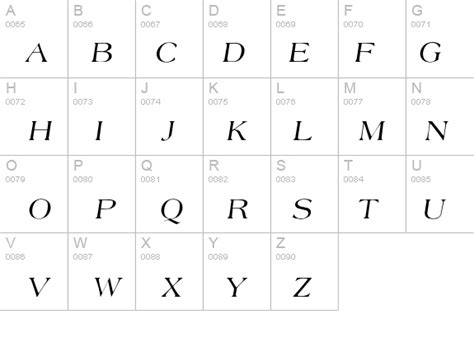
PSEIIBullpense: Exploring Normal Italic Font Styles
Let’s dive into the world of typography, guys! Today, we’re going to explore PSEIIBullpense normal italic fonts . Understanding the nuances of different font styles can significantly enhance your design projects, whether you’re creating a website, designing a logo, or working on print media. So, grab your coffee, and let’s get started!
What is PSEIIBullpense?
First off, what exactly is PSEIIBullpense? Well, it sounds like a specific font name, possibly a unique or custom typeface. Without more context, it’s hard to pinpoint its exact origin or characteristics. However, for the purpose of this article, let’s assume PSEIIBullpense refers to a hypothetical or niche font we want to discuss in terms of its normal italic style. When we talk about a font, we consider its overall design, including the weight (light, regular, bold), style (normal, italic, oblique), and various other attributes that make it unique.
When designers create fonts, they pay close attention to readability, aesthetics, and the overall impression the font conveys. PSEIIBullpense , like any other font, would have been designed with specific use cases in mind. Maybe it’s intended for elegant invitations, professional documents, or artistic displays. The design choices, such as the curvature of the letters, the thickness of the strokes, and the spacing between characters, all contribute to its unique personality.
Moreover, the cultural and historical context in which a font is designed can also influence its characteristics. Fonts often reflect the artistic trends and technological capabilities of their time. So, while PSEIIBullpense might sound modern, it could very well draw inspiration from classic typefaces or historical calligraphic styles. Understanding this background can help us appreciate the font’s design and use it more effectively in our projects.
Understanding Italic Fonts
Now, let’s zoom in on the “italic” part. What does it mean for a font to be italic? Simply put, italic fonts are a slanted version of a regular typeface. But it’s more than just tilting the letters! A true italic font is specifically designed to have a different character from its regular counterpart. The letterforms are often redesigned with a more cursive or script-like appearance, giving them a distinct personality.
The history of italic fonts is fascinating. Italic typefaces originated in the 15th century as a way to fit more text on a page. They were designed to mimic the handwriting of the time, making them both space-efficient and elegant. Over the centuries, italic fonts have evolved, but they still retain their association with sophistication and flair. Using italic fonts can add emphasis, indicate quoted material, or simply provide a visual contrast within a block of text.
One key difference between italic and oblique fonts is that italic fonts have redesigned glyphs, while oblique fonts are simply slanted versions of the regular font. This means that a true italic font will have unique letterforms that are different from the regular font, whereas an oblique font will just have the same letterforms tilted to the side. For example, the letters ‘a’, ‘e’, and ‘f’ often have very different shapes in italic versions compared to their regular counterparts.
In design, italics serve several purposes. They can emphasize specific words or phrases, indicate book titles or foreign words, or create a visual hierarchy within the text. When used sparingly, italics can draw the reader’s eye and add a touch of elegance. However, overuse of italics can make the text look cluttered and difficult to read. It’s all about finding the right balance and using italics intentionally to enhance the overall design.
Normal Italic: A Closer Look
So, what does “normal italic” mean? In the context of PSEIIBullpense , a normal italic would be the standard italic version of the font, without any additional weight (like bold) or stylistic variations. It’s the go-to italic style that you’d use most of the time. The “normal” part signifies that it’s neither a light italic nor a bold italic, but the standard version of the italic style. This is crucial because different weights can drastically change the appearance and impact of the font.
The normal italic style strikes a balance between readability and visual appeal. It provides a clear contrast to the regular font without being too overpowering. This makes it ideal for body text, captions, and other situations where you want to add emphasis without sacrificing legibility. When choosing a normal italic font, consider the overall tone and style of your project. A more formal font might have a subtle and refined italic style, while a more casual font might have a more playful and expressive italic style.
Furthermore, the quality of a normal italic font depends on the craftsmanship of the typeface designer. A well-designed italic font will have consistent letterforms, even spacing, and a harmonious relationship with the regular font. This ensures that the italic text blends seamlessly with the rest of the design and doesn’t look out of place. Pay attention to details like the angle of the slant, the shape of the serifs (if any), and the overall balance of the letterforms. These small details can make a big difference in the overall appearance of the text.
When working with a normal italic font, it’s also important to consider the context in which it will be used. For example, if you’re designing a website, you’ll need to make sure that the italic font renders correctly on different browsers and devices. You may also need to adjust the font size and line height to ensure optimal readability. In print design, you’ll want to pay attention to the color and texture of the paper, as these can affect the appearance of the italic text.
Using PSEIIBullpense Normal Italic Effectively
Alright, how can we use PSEIIBullpense normal italic effectively in our designs? The key is to use it intentionally and sparingly. Overusing italics can dilute their impact and make your text look messy. Here are a few tips to keep in mind:
• Emphasis: Use italics to emphasize key words or phrases that you want to stand out. This can help draw the reader’s attention to important information.
• Titles and Names: Italicize book titles, movie titles, and the names of publications. This is a standard typographic convention that helps readers quickly identify these elements.
• Foreign Words: Use italics to indicate foreign words or phrases that are not commonly used in the language of your text. This helps distinguish them from the rest of the text and shows that they are being used intentionally.
• Quotes: Italics can also be used to indicate direct quotes, especially when you want to differentiate them from the surrounding text. However, be sure to use quotation marks as well to avoid any confusion.
• Subtlety: Remember that italics are most effective when used subtly. Avoid using them for entire paragraphs or long sections of text, as this can make the text difficult to read. Instead, use them sparingly to highlight key points and add visual interest.
Consider the font pairing. PSEIIBullpense in its normal form likely has complementary fonts that work well with it. Experiment with different combinations to see what looks best for your project. A classic pairing might involve a serif font for headings and a sans-serif font for body text, with PSEIIBullpense italic used for emphasis within the body text. The goal is to create a harmonious and visually appealing design that is easy to read and understand.
Also, think about the overall aesthetic you’re trying to achieve. A formal design might call for a more restrained use of italics, while a more creative design might allow for more experimentation. Consider the target audience and the message you’re trying to convey. The font you choose should reflect the overall tone and style of your project.
Examples of PSEIIBullpense Normal Italic in Design
To give you a better idea of how PSEIIBullpense normal italic can be used in real-world scenarios, let’s look at a few examples:
1. Website Design: In a blog post, you might use PSEIIBullpense normal italic to emphasize key points or highlight important quotes. For example:
“The quick brown fox jumps over the lazy dog.”
2. Print Media: In a magazine article, you could use PSEIIBullpense normal italic to indicate the titles of books or movies mentioned in the text. For example:
“In his latest novel, The Silent Patient , Alex Michaelides explores themes of guilt and redemption.”
3. Logo Design: While using a full italic font for a logo might be too much, incorporating subtle italic elements can add a touch of elegance and sophistication. For example, you might use PSEIIBullpense normal italic for the tagline of a company to give it a more refined look.
4. Invitations: For formal events like weddings or galas, PSEIIBullpense normal italic can be used to add a touch of elegance to the invitations. For example, you might use it to highlight the names of the bride and groom or to emphasize important details like the date and time.
5. Business Cards: Incorporating PSEIIBullpense normal italic on business cards can help certain information stand out, such as a job title or a specific service offered. This can make the card more memorable and help the recipient quickly understand what you do.
By examining these examples, you can start to see how PSEIIBullpense normal italic can be used in a variety of design contexts. Remember to always consider the overall tone and style of your project and use italics intentionally to enhance the message you’re trying to convey.
Conclusion
So, there you have it! A deep dive into PSEIIBullpense normal italic fonts . Understanding the characteristics and uses of different font styles is essential for any designer. By mastering the art of typography, you can create visually appealing and effective designs that communicate your message clearly and persuasively. Whether you’re working on a website, a print project, or a logo, remember to choose your fonts carefully and use them intentionally to achieve the desired effect. Keep experimenting, and have fun with it! Who knows, maybe PSEIIBullpense will become your new favorite font! Happy designing, folks!